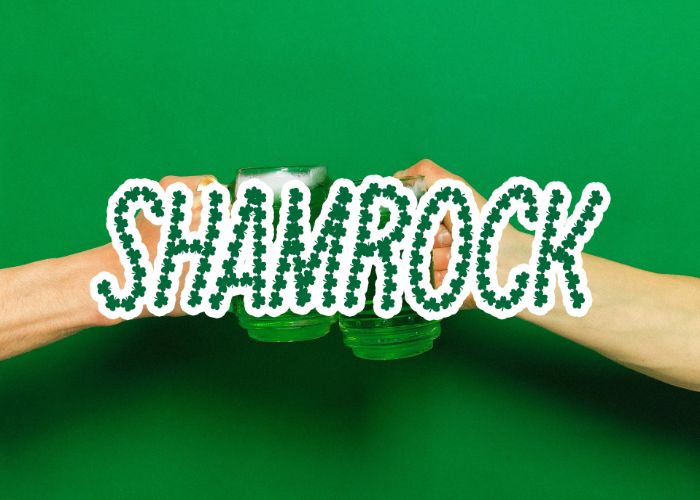
Free holiday font perfect for St. Patrick’s Day celebrations. Shamrock is a festive display type designed for seasonal headlines, posters, invitations, packaging, social posts and other creative projects. This freebie comes with an Extended License so you can use it in unlimited projects.